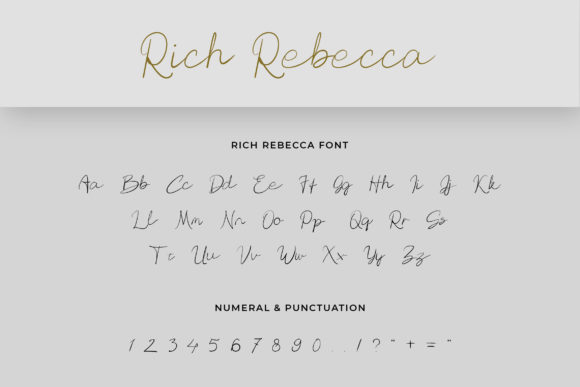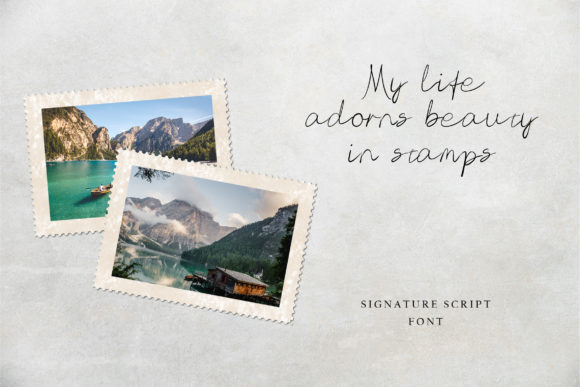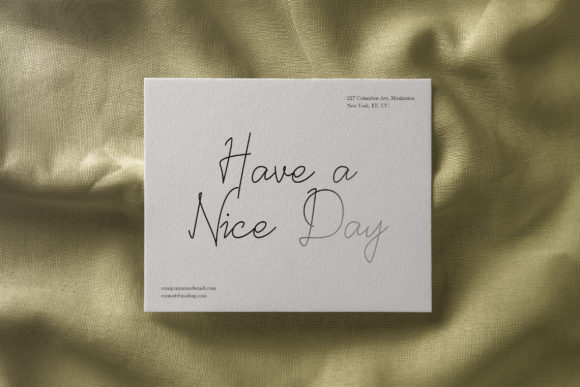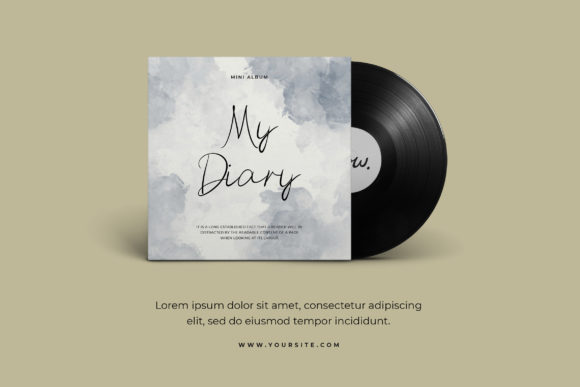
Introduction to Rich Rebecca Font
Rich Rebecca is an elegant script font, that features a very delicate and classy look.
Not too thin and not too thick, balanced and varied, this font was designed to enhance the beauty of your projects .
Key Features of Rich Rebecca Font
Why Choose Rich Rebecca Font?